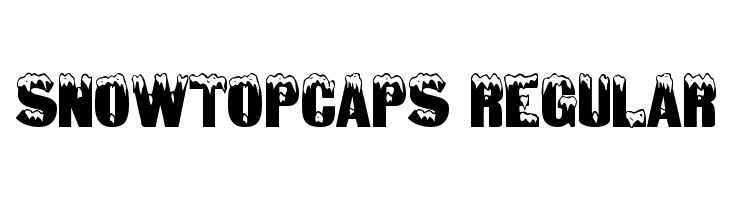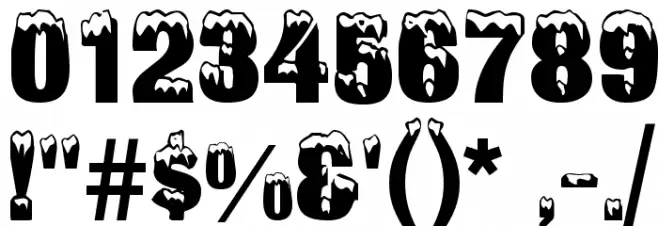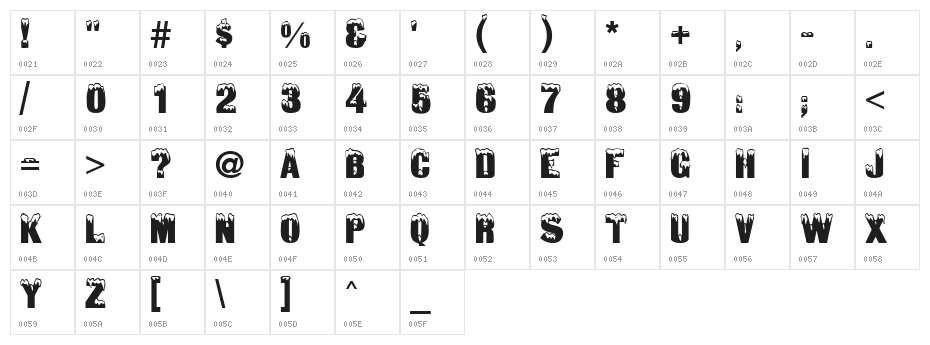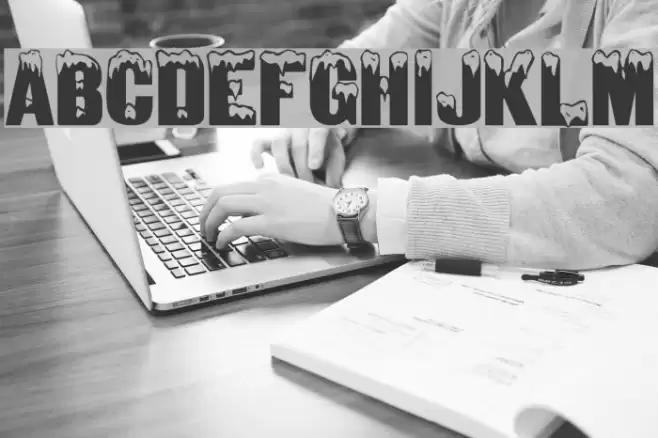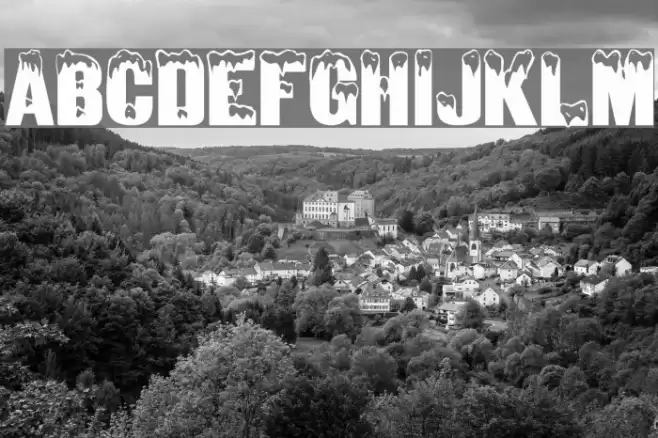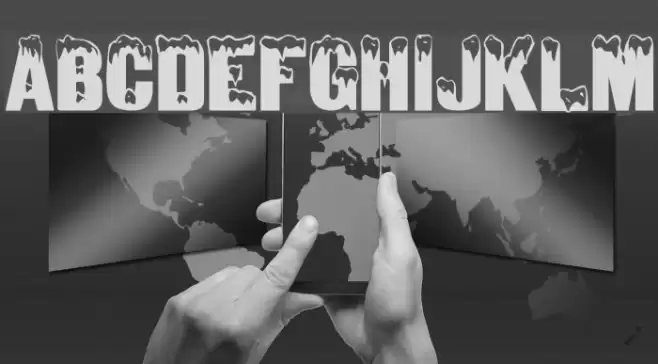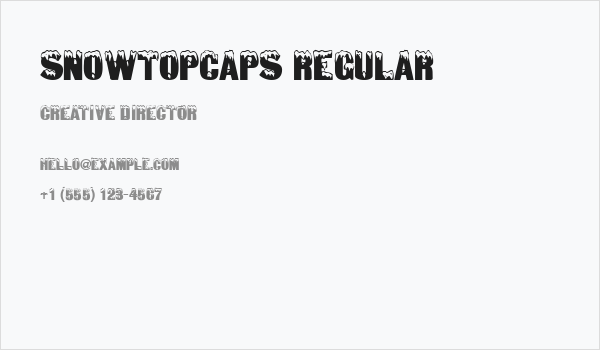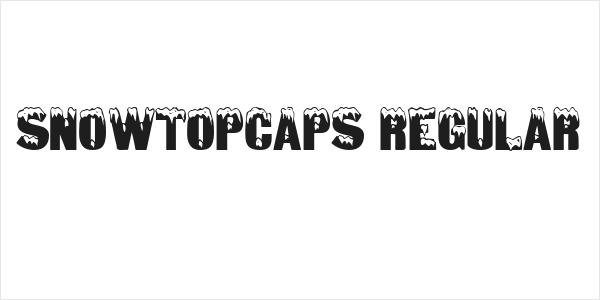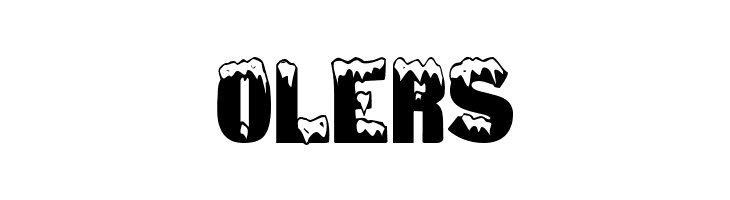
SnowtopCaps Regular Font
SnowtopCaps Regular Description
This font features a playful and decorative style with a winter theme. Each character is topped with a snow-like design, creating a whimsical and festive appearance. The bold, uppercase letters are designed to stand out, making them ideal for eye-catching displays. The numbers and special characters maintain the same snowy motif, ensuring consistency across all glyphs. The font's unique design is perfect for holiday-themed projects or any creative work that requires a touch of seasonal charm.
| Proposed Projects | Ideal for holiday cards, winter event posters, festive banners, and seasonal advertisements. |